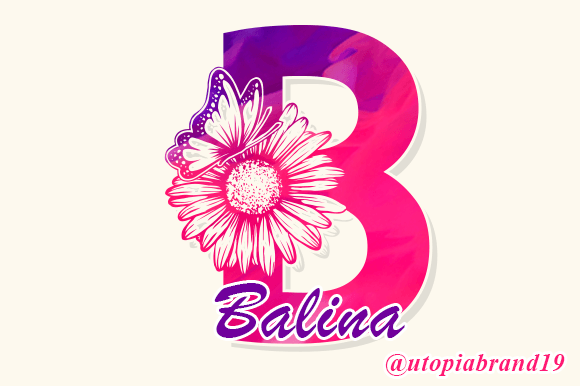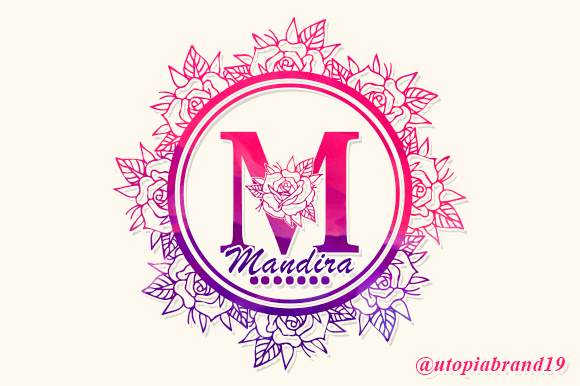
Ameera Monogram
H2: First Impressions and Visual Personality
The first time I saw Ameera Monogram, I was struck by its refined elegance. It carries the weight of a classic serif font but with a subtle modern twist that makes it feel fresh and contemporary. The letters are well-proportioned, with a balanced contrast between thick and thin strokes. This creates a visual rhythm that feels both sophisticated and approachable.
Ameera Monogram has a soft, decorative flair that suggests craftsmanship and attention to detail. It’s not overly ornate, which is a relief for designers who want to avoid clutter. The font exudes a sense of refinement, making it ideal for projects that require a touch of luxury or sophistication without being too formal.
H2: Practical Use in Real Design Projects
Ameera Monogram is a versatile display font that can work across a range of design applications. Its decorative nature makes it particularly effective in branding, especially for logos and brand marks where a unique visual identity is essential. I’ve used it in logo design for boutique brands and artisanal products, where its elegant curves and consistent spacing helped create a cohesive look.
In packaging design, Ameera Monogram adds a premium feel to product labels and wrappers. It works well on high-end packaging, especially when paired with minimalist layouts. For editorial design, it’s a great choice for headers, titles, and pull quotes. Its readability at larger sizes ensures that it maintains legibility even when used in print or digital formats.
On the web, Ameera Monogram performs admirably as a display font. When used in website headers or social media graphics, it adds a distinctive character that stands out. However, it’s important to use it sparingly and pair it with a more readable sans serif font for body text to maintain accessibility.
H2: Where to Use Ameera Monogram with Care
While Ameera Monogram is visually appealing, it should be used with caution in certain contexts. Due to its decorative nature, it may not be the best choice for long blocks of text or small-sized applications. In fact, testing it in black and white is crucial to ensure it remains legible under different lighting conditions and print settings.
For large headlines or short phrases, Ameera Monogram shines. It’s perfect for quotes, taglines, and brand slogans where a bold, memorable presence is desired. However, when used for supporting text or extensive content, it can become overwhelming. Always check small-size readability and ensure that it doesn’t compromise the overall clarity of your design.
H2: Design Considerations and Best Practices
As a designer, I always recommend testing fonts in various environments before finalizing their use. Ameera Monogram should be reviewed alongside other typefaces to assess how it interacts with them. Try pairing it with a clean sans serif font for a modern contrast or a script font for a more elegant combination.
H2: Impact on Branding and Audience Engagement
Ameera Monogram has a strong influence on brand identity. Its elegant curves and refined structure convey professionalism and trustworthiness. Brands that use this font often see an increase in audience recognition and engagement due to its distinct visual personality.
However, consistency is key. Using Ameera Monogram across all brand touchpoints helps reinforce brand identity. Whether it's on a website header, a social media post, or a printed flyer, maintaining a consistent typographic style ensures that your brand remains recognizable and cohesive.
H2: Final Thoughts and Designer Notes
Ameera Monogram is a creative font that offers a blend of elegance and modernity. It’s a great choice for designers looking to add a touch of sophistication to their projects. From logo design to editorial layouts, this font has a wide range of applications.
But remember, no font is a one-size-fits-all solution. Always test Ameera Monogram in real-world scenarios, consider its impact on readability and hierarchy, and ensure it aligns with your brand’s visual goals. With the right application, Ameera Monogram can elevate your design projects and leave a lasting impression.